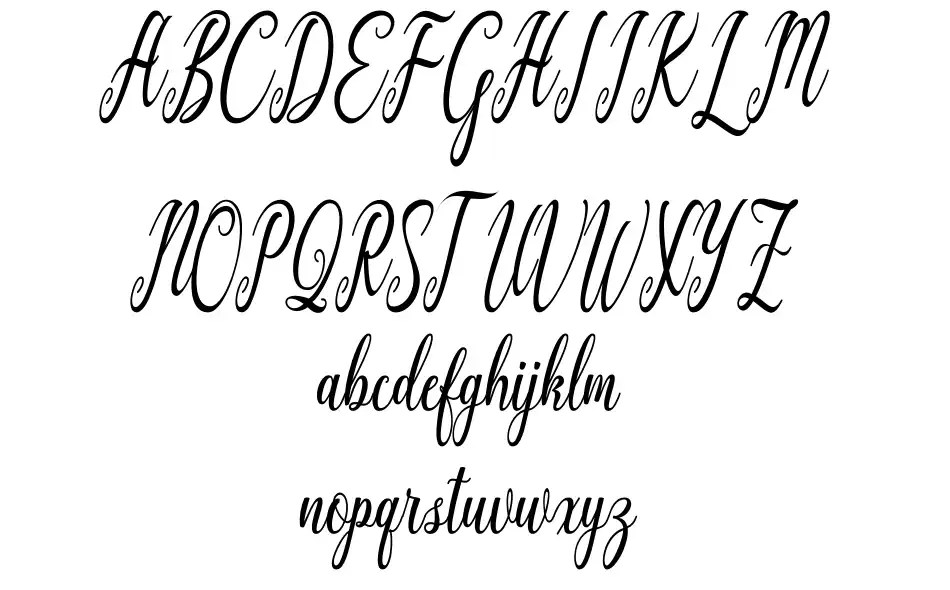
Awasome Cali Lettering Fonts 2022
Awasome Cali Lettering Fonts 2022. If you want to create professional printout, you should consider a commercial font. Dumpy planet by calligraphy fonts.
Calligraphy fonts ️ download 6,400+ free | fontspace calligraphy fonts calligraphy is an artistic writing style where the pressure is varied to create thick and thin lines, all in a single. The font provides multiple alternatives. Make sure to scroll down to explore all the fonts before.
Cali Life Style Font About Cali Life Style Font Mexican Invasion Is An Album Released In 1996 By Cali Life Style, A Chicano Rap Duo Formed In 1992 From Santa Maria, Ca.
This Impromptu Rendering Of Her Calligraphic Alphabet Captures Her.
Dumpy Planet By Calligraphy Fonts.